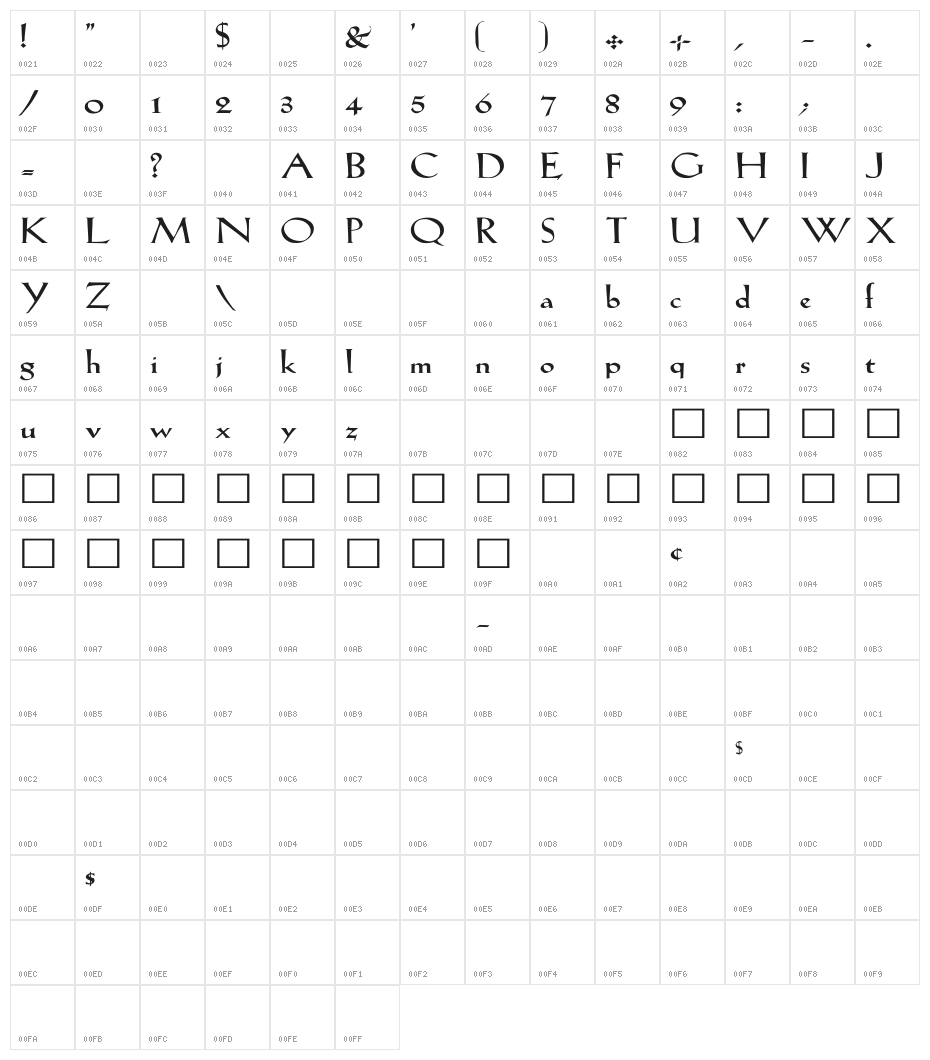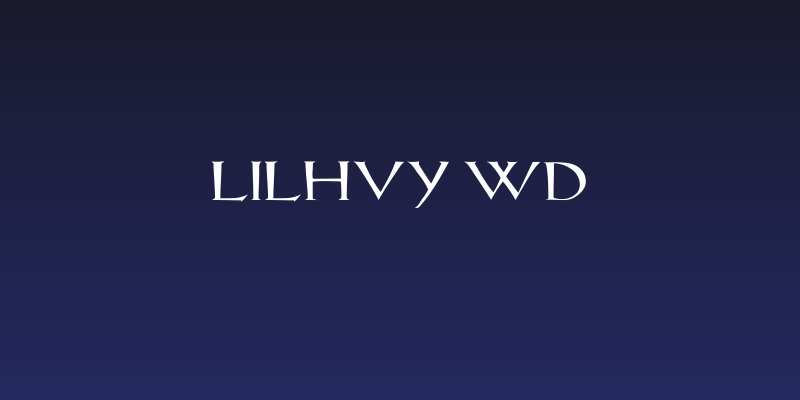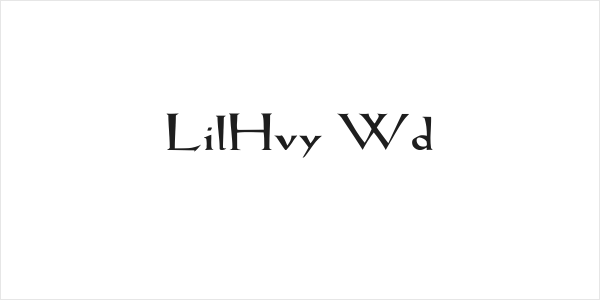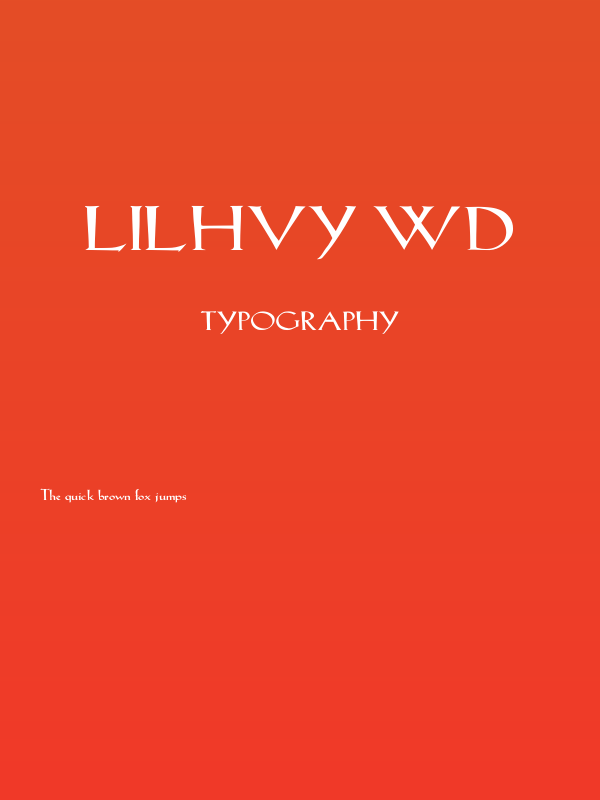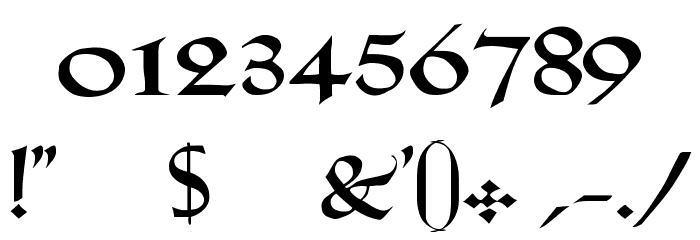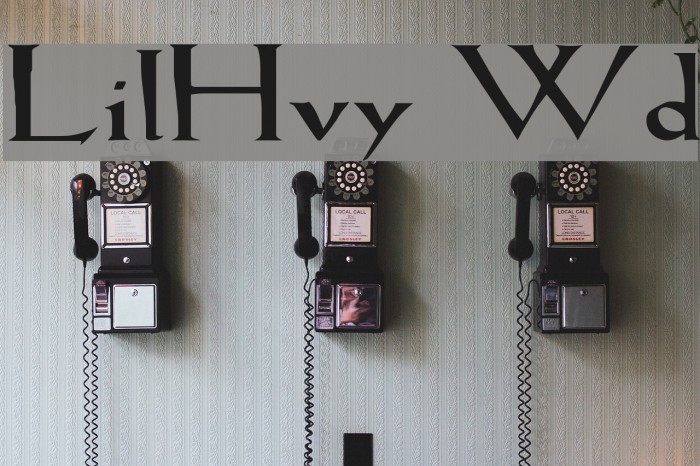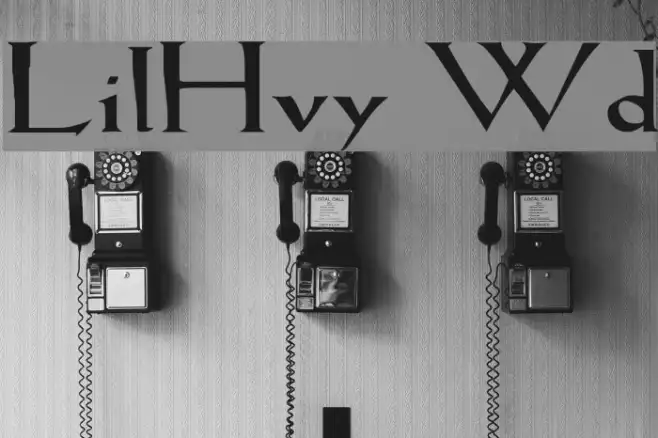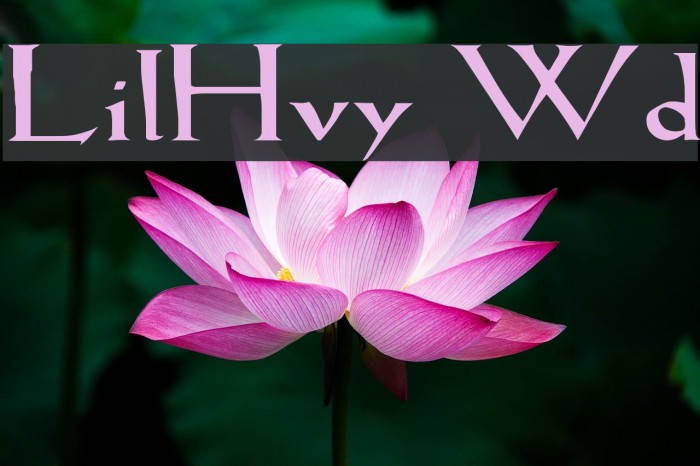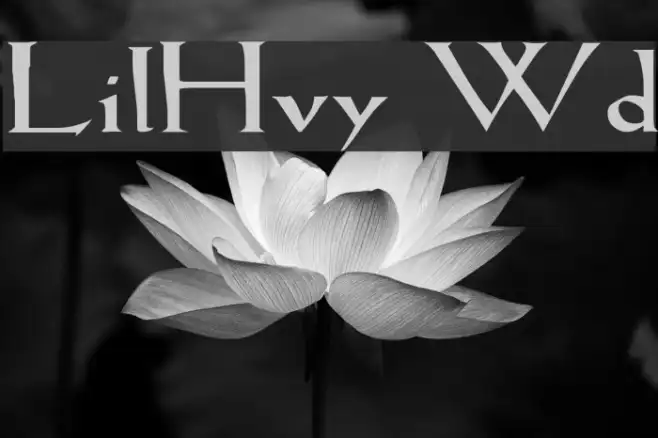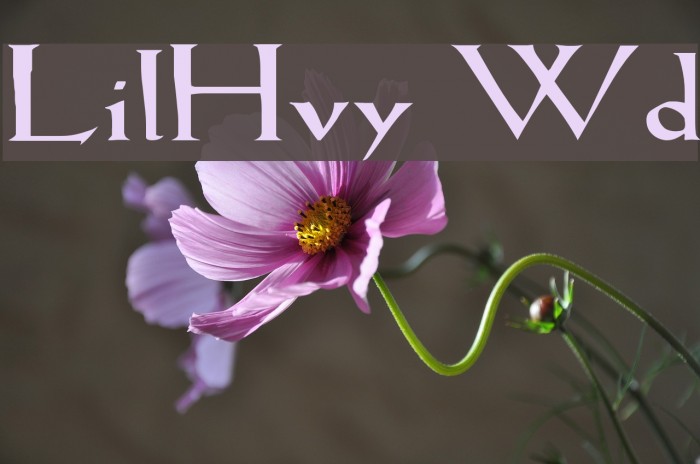
LilHvy Wd Font
LilHvy Wd Description
This font features a distinct, sharp, and angular design, reminiscent of medieval or gothic styles. The uppercase letters have a strong presence with pointed serifs and a slightly condensed form, giving them an authoritative look. The lowercase letters maintain the sharpness but with a more fluid and dynamic flow, adding a touch of elegance. Numbers are bold and consistent with the overall theme, ensuring readability while maintaining the stylistic integrity. Special characters are uniquely crafted, fitting seamlessly with the rest of the font, making it suitable for decorative purposes.
| Proposed Projects | Ideal for fantasy-themed projects, book covers, movie posters, or any design requiring a dramatic and historical touch. |